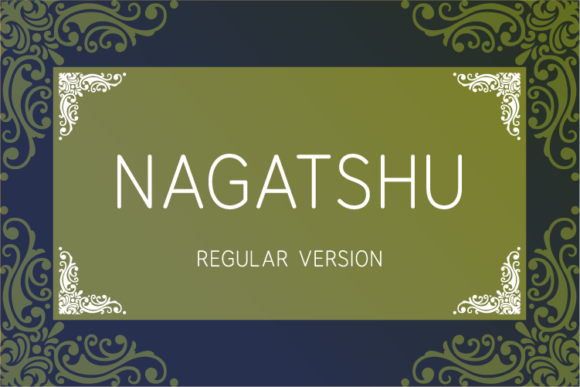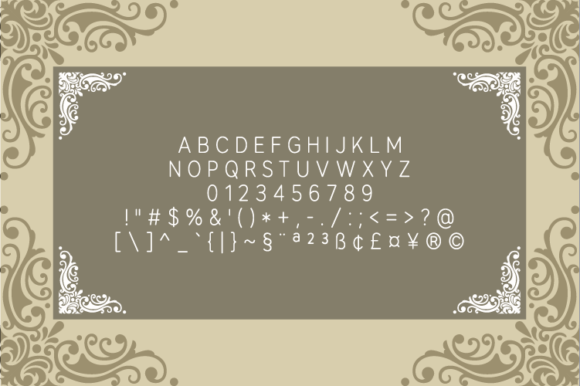
Nagatshu Regular Font
About Nagatshu Regular Font
Nagatshu is inspired by classic typography and brings its own unique style to any design project. Use this gorgeous and unique sans serif font to bring any DIY project to life!